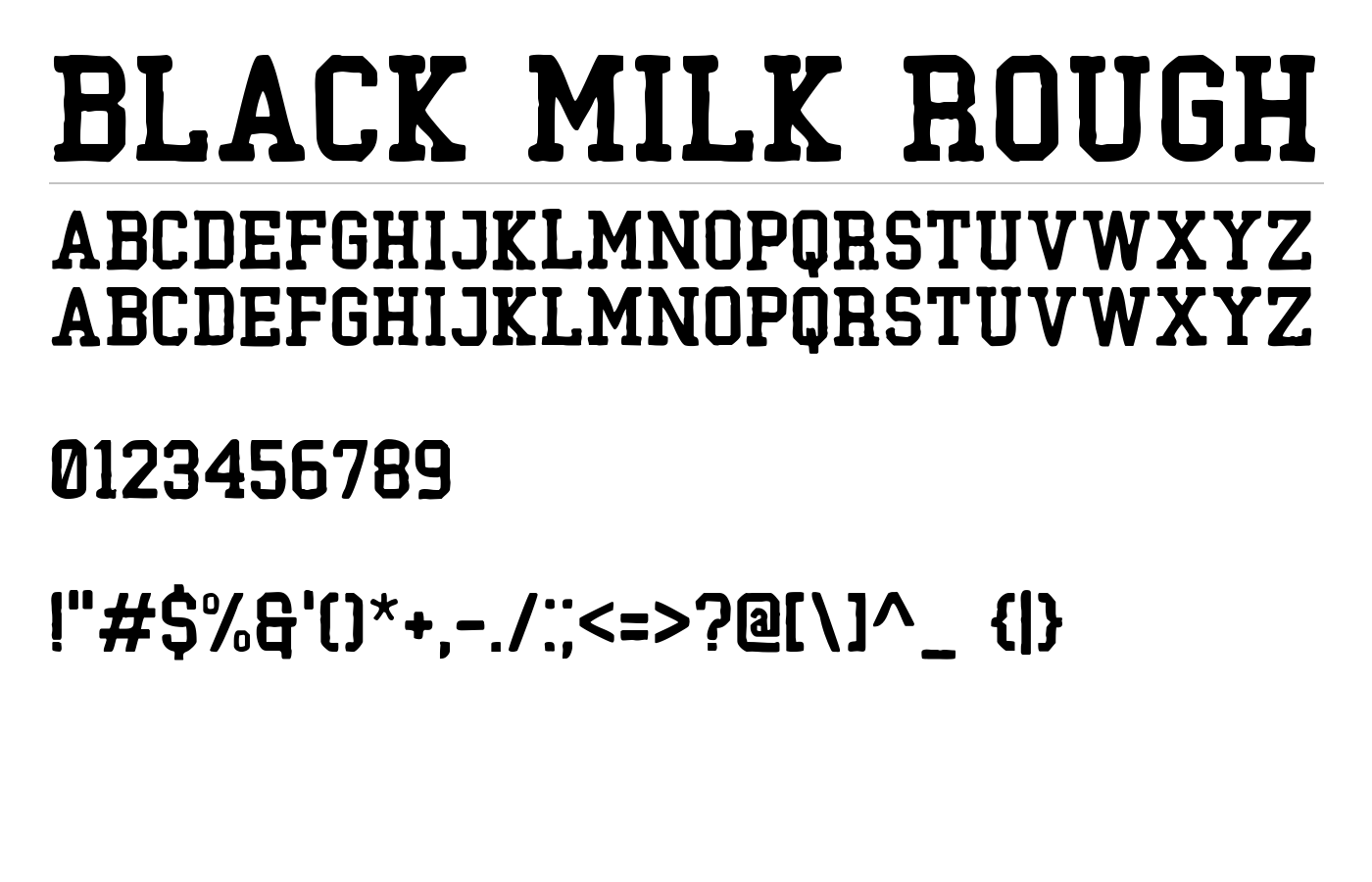
Black Milk Rough is a bold, condensed slab serif font with a rugged, textured appearance that gives it a vintage, industrial feel. Its strong, blocky letterforms with slight rough edges and uniform stroke contrast create a distinctive, sturdy look ideal for headlines, logos, and packaging that seek to convey strength and authenticity. This font works great for brands wanting a bold yet handcrafted vibe, standing out in editorial designs, posters, and fashion labels with a rustic, edgy style.
Black Milk Rough Font
About Black Milk Rough Font
| Designer | Rizka Prayuda |